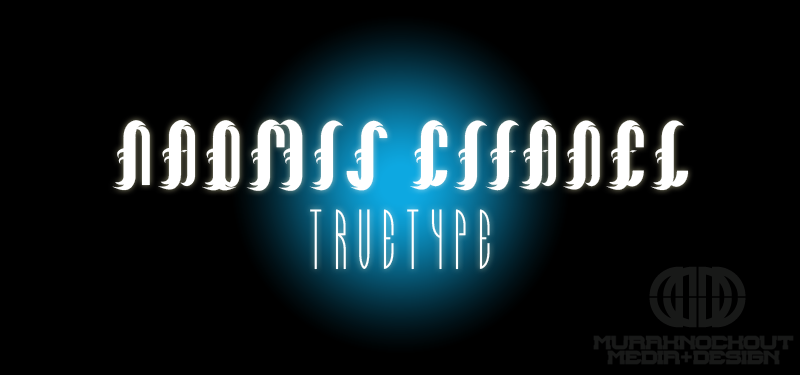
Preview and download Naomis Citadel Font. Created by MuraKnockout Media + Design in Gothic Modern styles with 100% Free license.
Note by MuraKnockout Media + Design | |
A font comissioned by my good friend and author Rick Austinson for his upcoming Consecution Books series. The uppercase is a gothic/title style while the lowercase and symbols are a body text style. This font is intended to be used on a map. Check out the book at http://thecoursebooks.com/ This is free to do with whatever you wish, personal or commercial. Just don't claim ownership, sell it, redistribute it, or be a jerk with it. It might be cool if you use the font to either credit MuraKnockout Media or Michael Muranaka, or show me how you used it! Enjoy! |